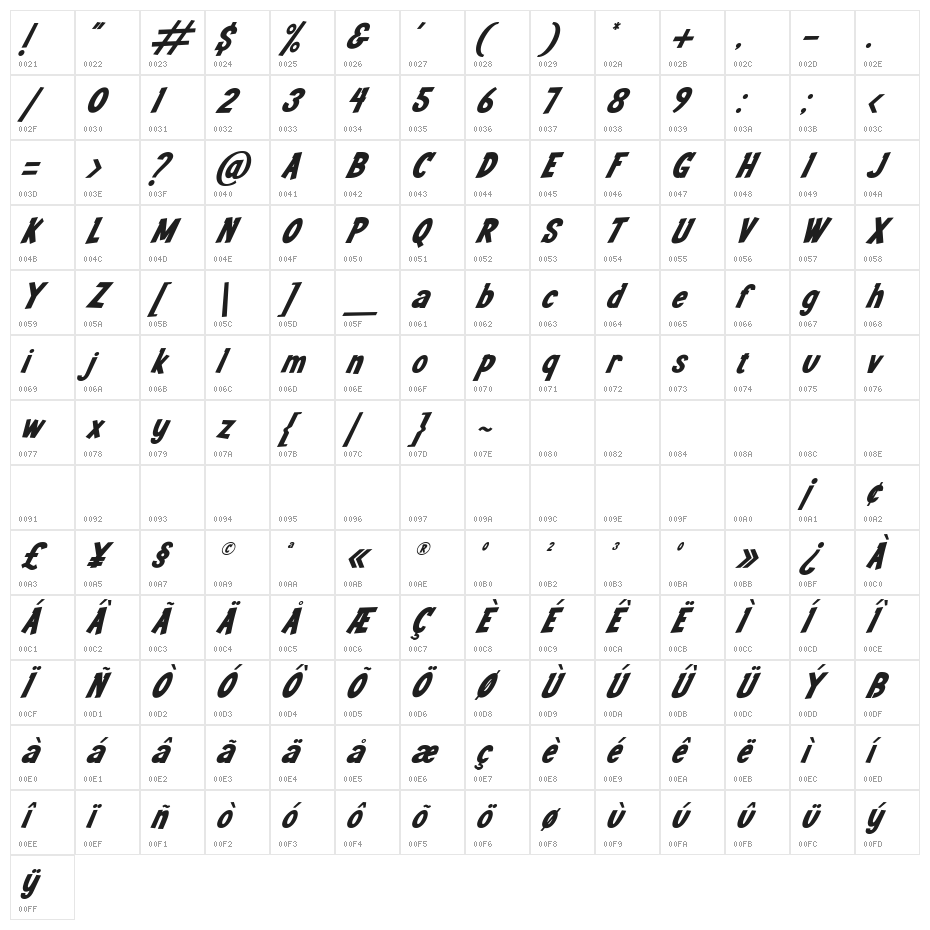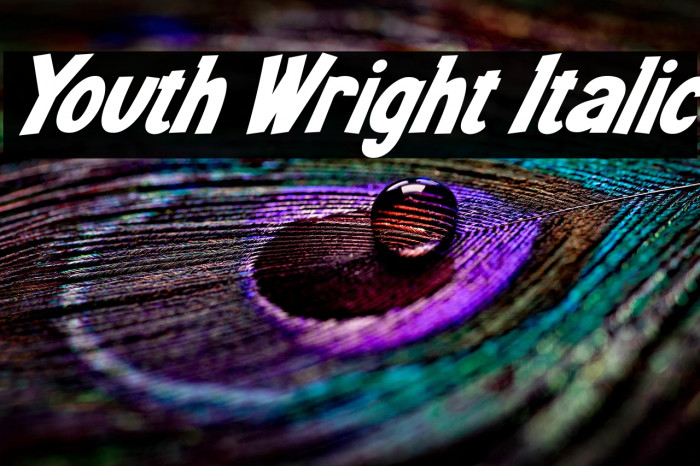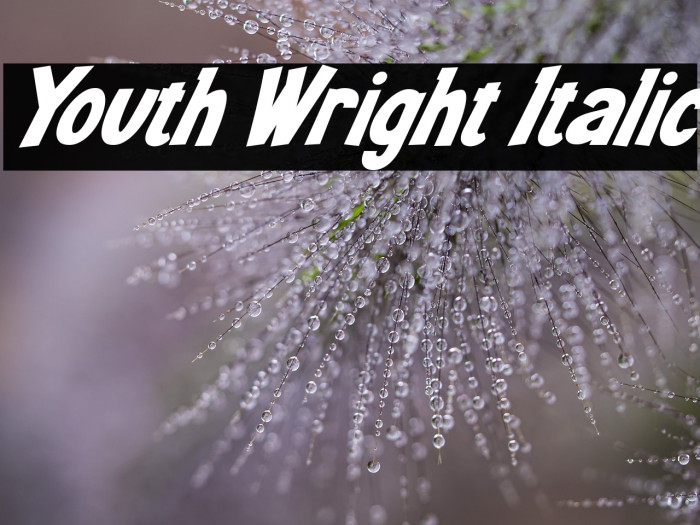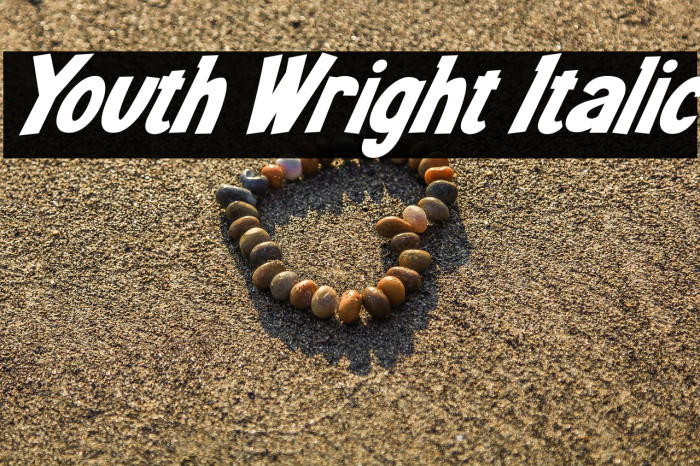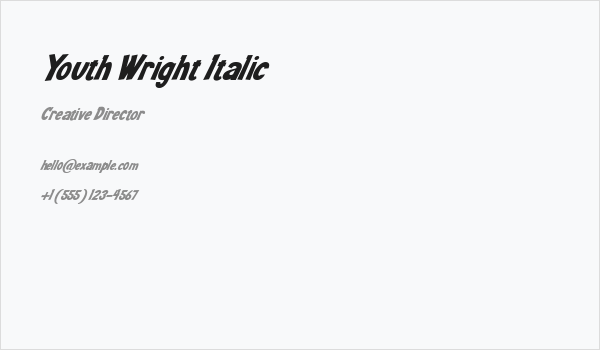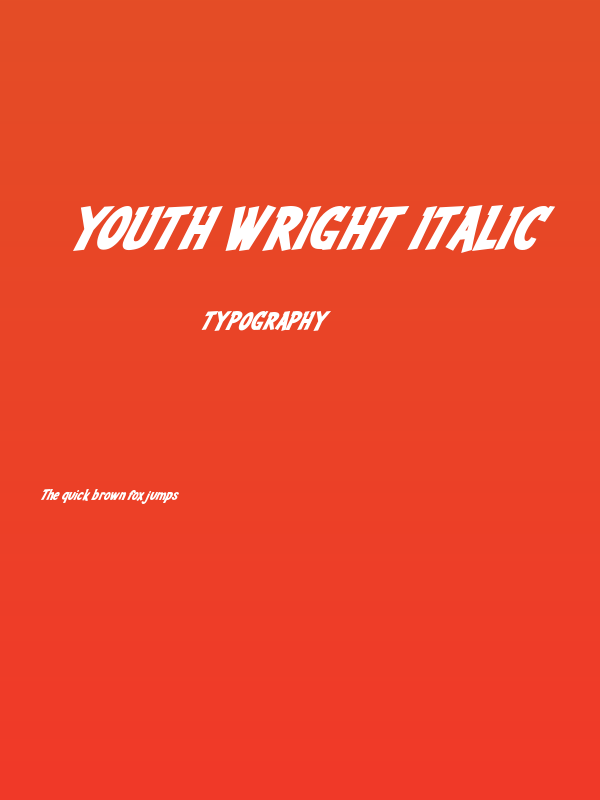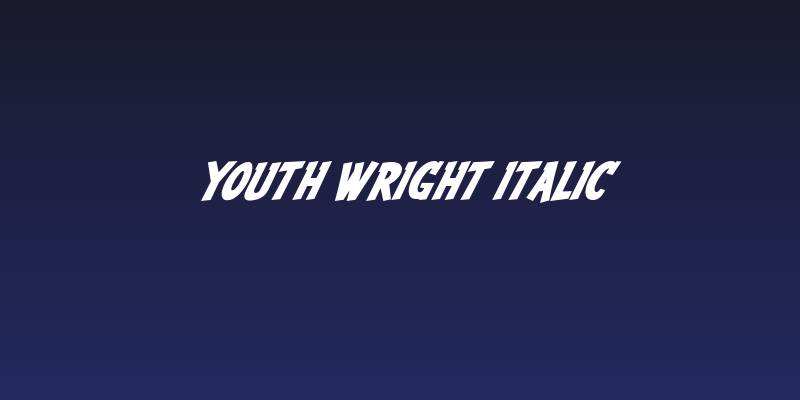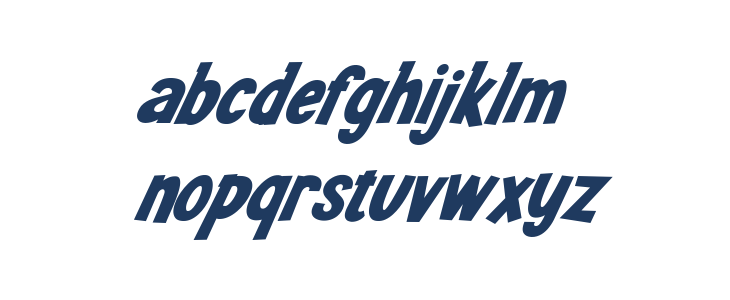
Youth Wright Italic Font
Youth Wright Italic Description
This font features a bold and dynamic style with a pronounced italic slant, giving it a sense of movement and energy. The characters are thick and robust, with sharp angles and a slightly condensed form that enhances its impactful appearance. The uppercase and lowercase letters maintain a consistent style, with the lowercase letters mirroring the boldness of the uppercase. Numbers and special characters are equally bold, ensuring uniformity across all text elements. The font's strong visual presence makes it ideal for attention-grabbing designs.